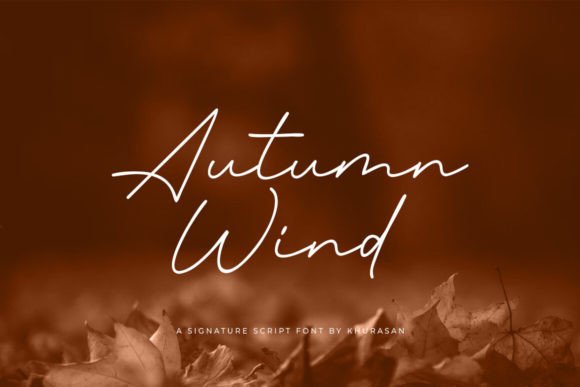
Introducing Autumn Wind Font: Elevate Your Designs with Elegance
The arrival of autumn brings with it a sense of change and renewal. The leaves turn golden, the air grows crisp, and the world is painted with vibrant hues of orange, red, and yellow. It’s a season of transformation, and what better way to capture its essence than with a font that embodies the same qualities? Say hello to Autumn Wind Font, a clean, stylish, modern, and elegant script font designed to breathe life into your creative projects.
Key Features of Autumn Wind Font
- Clean and Stylish: Autumn Wind boasts a sleek and refined aesthetic, making it perfect for designs where sophistication is key.
- Modern and Elegant: With its fluid lines and graceful curves, this font exudes modernity and elegance, suitable for a wide range of applications.
- Versatile: From posters and logos to magazines, book covers, and banners, Autumn Wind Font is incredibly versatile and can be matched to an extensive set of projects.
Endless Possibilities: Uses of Autumn Wind Font
Autumn Wind Font is not just a font; it’s a tool that can elevate your designs to new heights. Here are some of the many ways you can use it:
- Posters: Create eye-catching posters for events, promotions, or awareness campaigns that stand out with Autumn Wind Font.
- Logos: Give your brand a touch of elegance and sophistication with a logo designed using Autumn Wind Font.
- Magazines and Newspapers: Use Autumn Wind Font for headings, subheadings, or even body text to add a stylish flair to your publications.
- Book Covers: Make your book cover designs more appealing and professional with the elegant look of Autumn Wind Font.
- Banners: Whether for websites, social media, or physical events, banners designed with Autumn Wind Font are sure to grab attention.
Why Choose Autumn Wind Font?
In a world where design plays a crucial role in communication and expression, having the right font can make all the difference. Here are a few reasons why Autumn Wind Font stands out:
- Unique and Memorable: Its elegant and modern design ensures that your work stands out and remains memorable.
- Easy to Read: Despite its stylish and script nature, Autumn Wind Font maintains a high level of readability, making it suitable for both headings and body text.
- Highly Versatile: It can be used across various platforms and for different types of projects, from digital to print.
Tips for Using Autumn Wind Font Effectively
To get the most out of Autumn Wind Font, consider the following tips:
- Mix and Match: Combine Autumn Wind Font with other fonts to create a unique and balanced design. Its elegance pairs well with both serif and sans serif fonts.
- Play with Sizes: Use varying sizes to create a hierarchy in your design, making it more engaging and easier to navigate.
- Experiment with Colors: While Autumn Wind Font looks great in black, don’t be afraid to experiment with colors that complement your brand or theme.